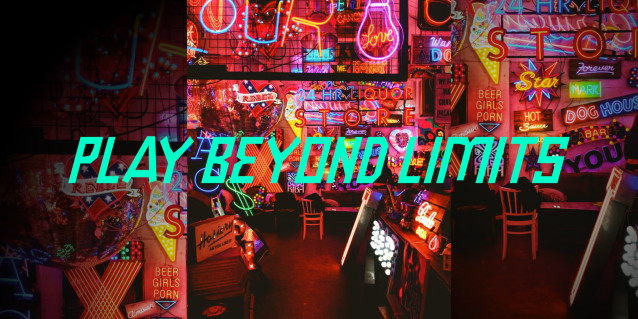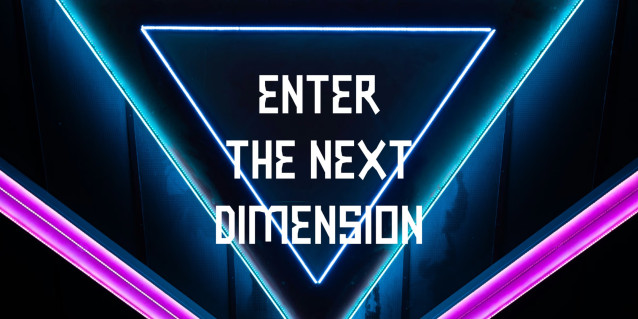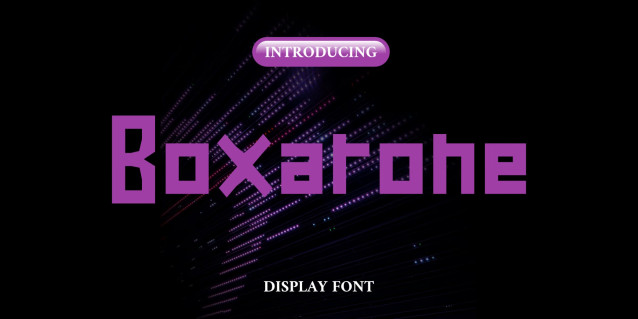
Boxarone Cyberpunk Display Font
BOXARONE is a bold futuristic display font crafted with strong geometric shapes and a modern techno aesthetic. Designed to create a powerful visual impact, this typeface blends cyberpunk energy, gaming culture, and sci-fi inspiration into a clean and distinctive style.
Characterized by its solid, blocky forms and clean, geometric lines, this font exudes a powerful and impactful presence. Boxarone is meticulously engineered for high-visibility designs, making it an excellent choice for striking logos, urban streetwear branding, futuristic poster designs, sports apparel, gaming graphics, and contemporary editorial headlines. With its strong visual weight and sharp angles, Boxarone delivers maximum readability while giving your creative projects a distinct, edgy, and industrial aesthetic.